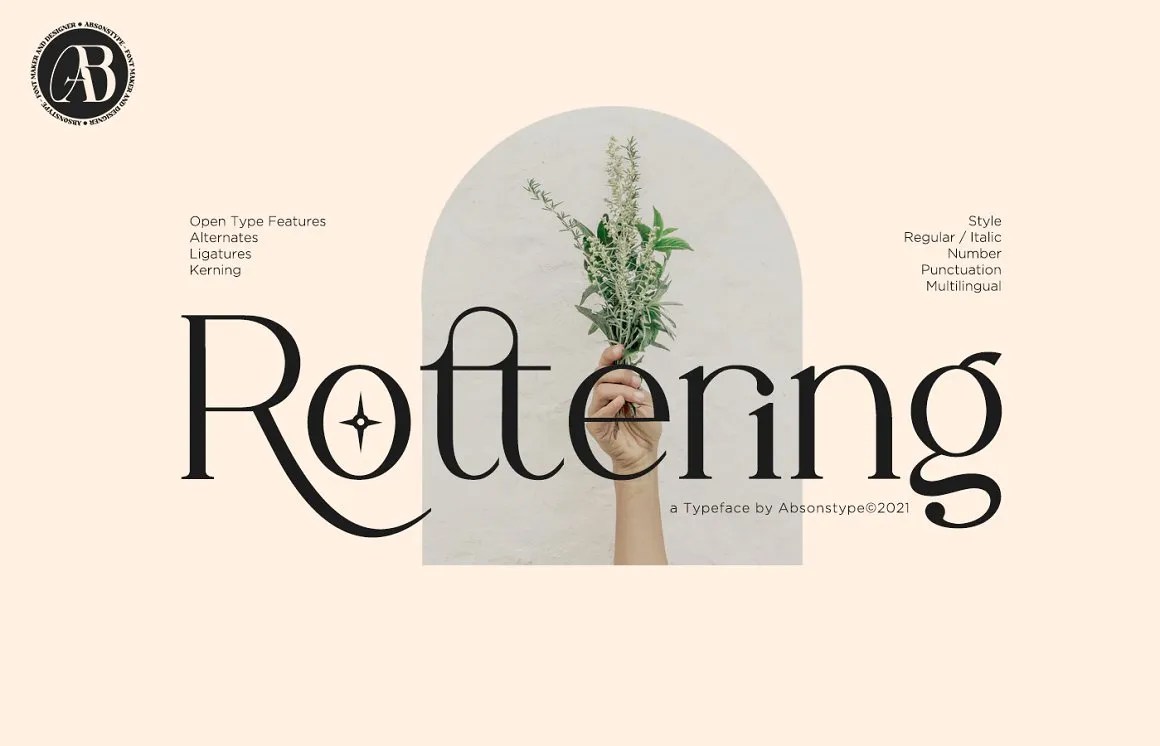
Rottering Font
Rottering is a sophisticated serif font that offers elegantly balanced uppercase and lowercase letters. Featuring unique ligatures that alternate font styles, it creates an eye-catching design perfect for any typographic project.
Whether you’re working on headlines, posters, logos, packaging, or even T-shirts, Rottering brings a refined, modern touch to your designs. Its versatility makes it ideal for a range of applications, ensuring that your message stands out with elegance and style.
With its strong visual appeal, Rottering is perfect for projects that require a sophisticated and modern look. Its well-crafted details make it suitable for both print and digital mediums, ensuring that your designs maintain clarity and charm.